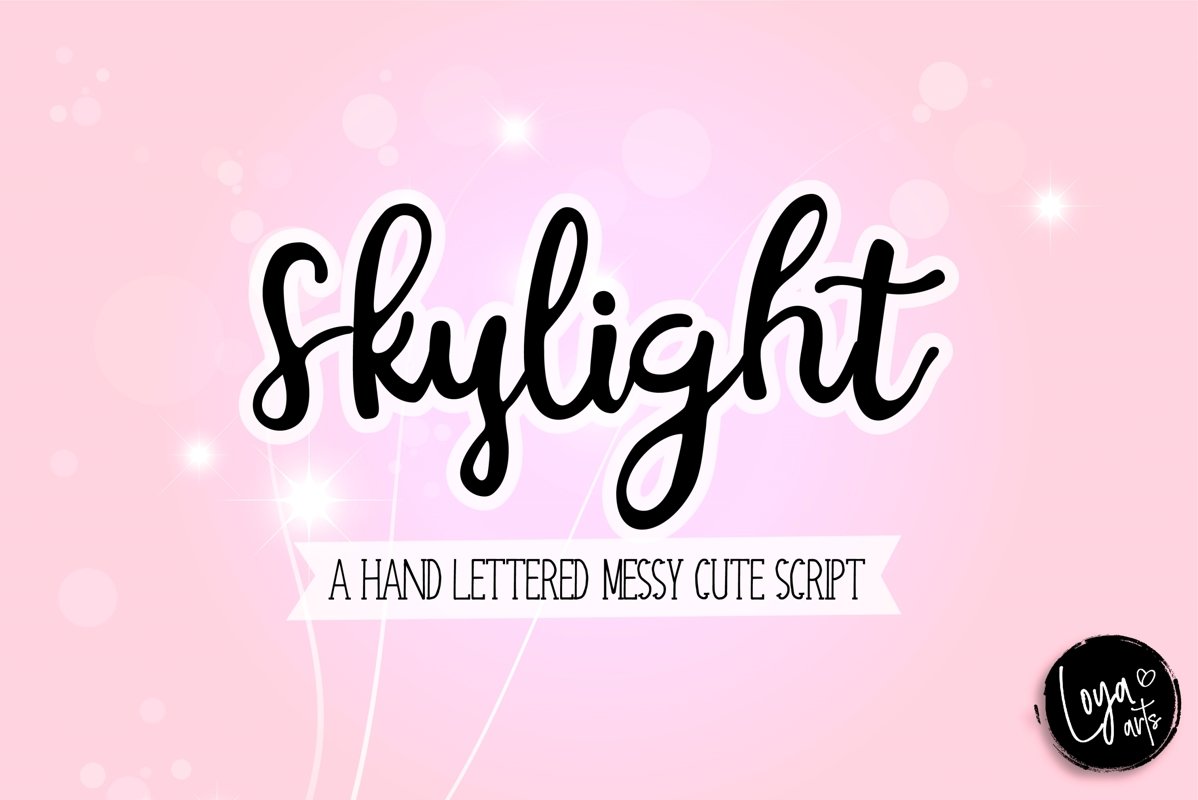
SkyLight
Skylight is a cute messy handwritten script font!
This font is perfect for quotes, shirt designs, websites, branding, children's designs,  blogs, logos, invitations and more!